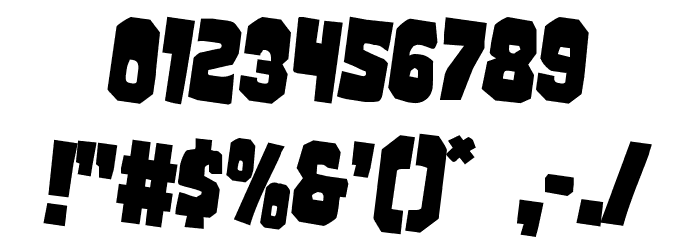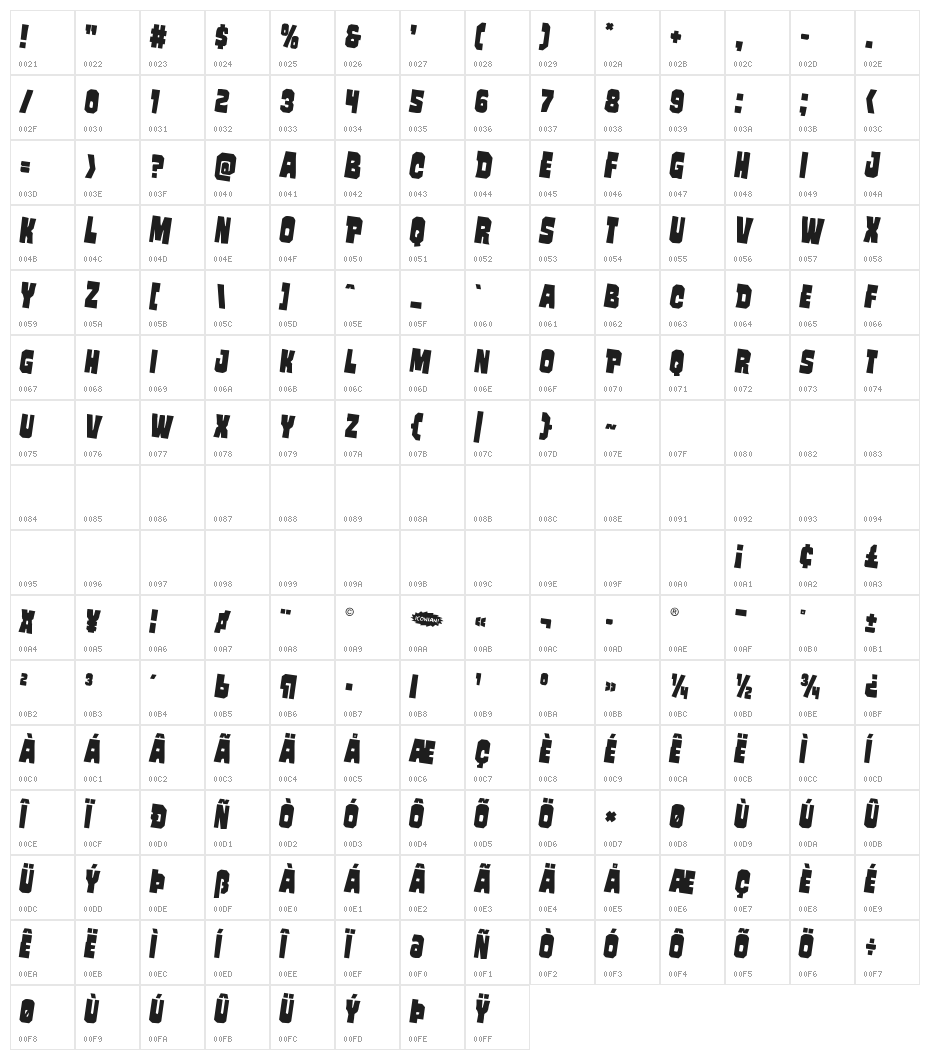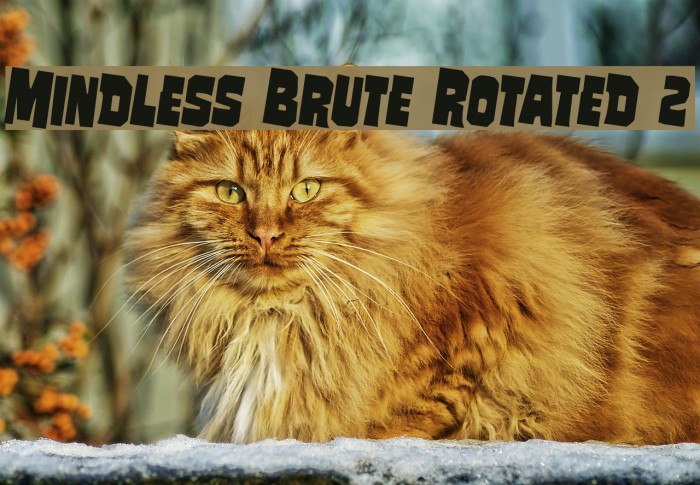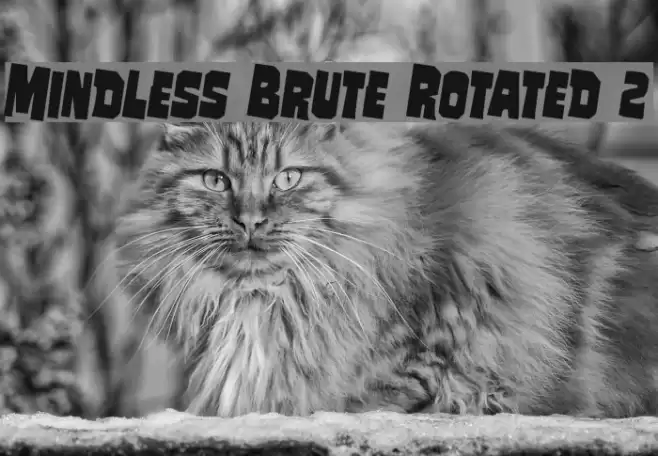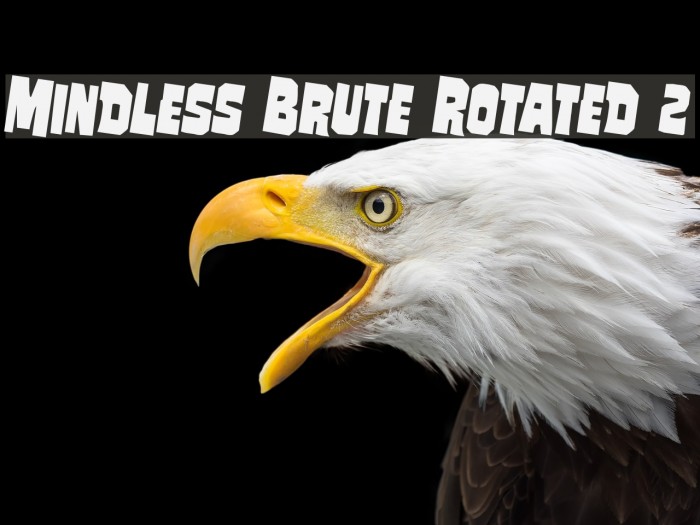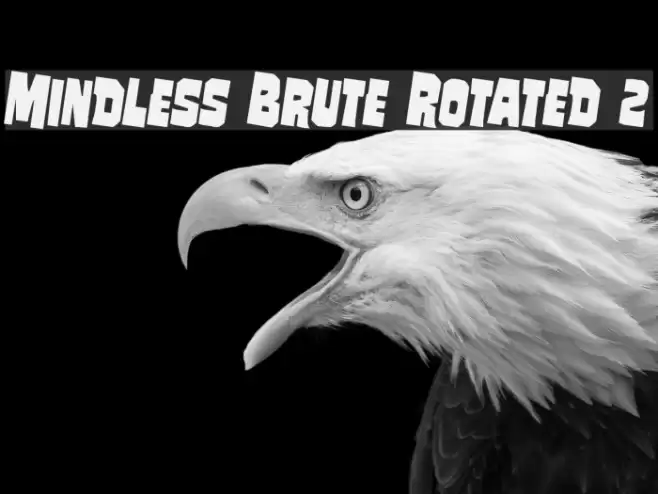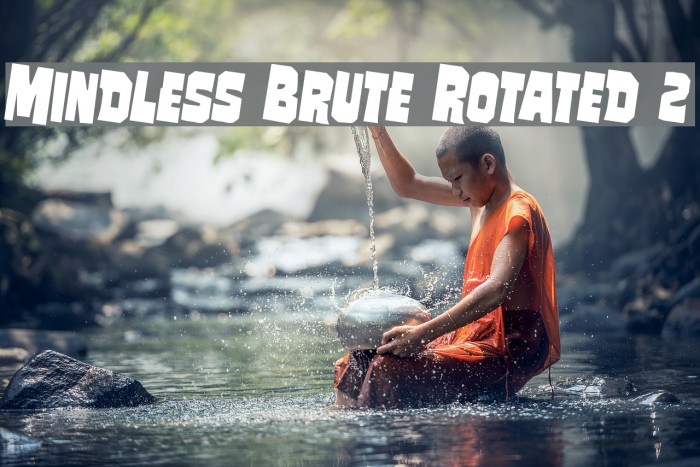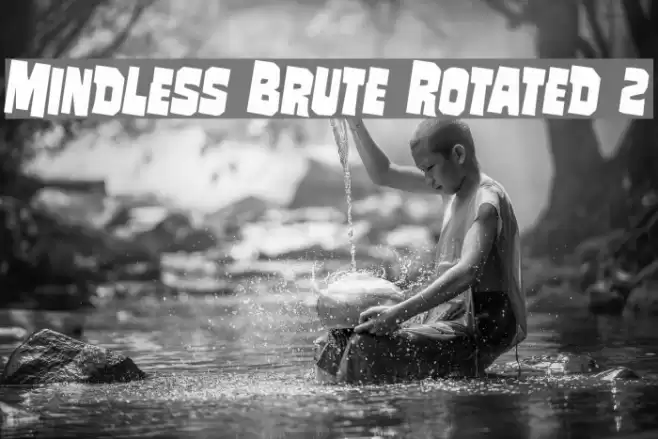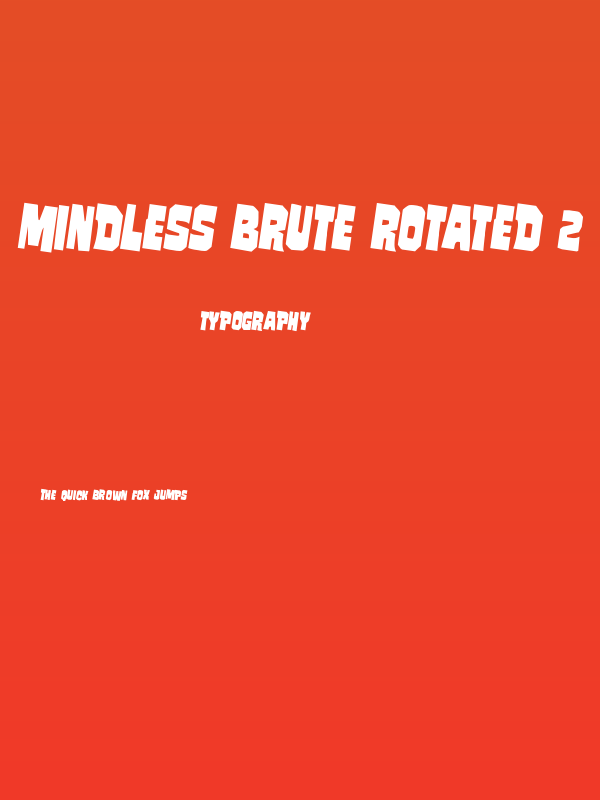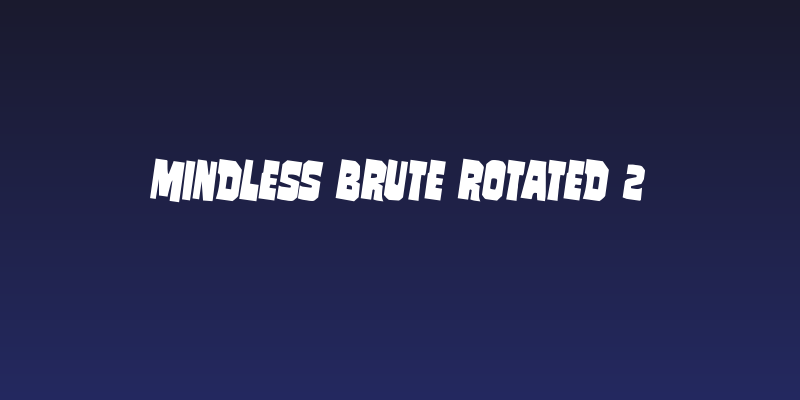
Mindless Brute Rotated 2 Font
Mindless Brute Rotated 2 Description
This font features a bold and aggressive style with thick, angular strokes that give it a powerful and dynamic appearance. The characters are heavily weighted, creating a strong visual impact. The design includes sharp edges and a slightly irregular form, adding a sense of movement and energy. This font is ideal for making statements and capturing attention, with its distinctive and unconventional look. The uppercase and lowercase letters maintain a consistent style, while the numerals and special characters complement the overall aesthetic. Its unique design makes it suitable for projects that require a bold and edgy touch.